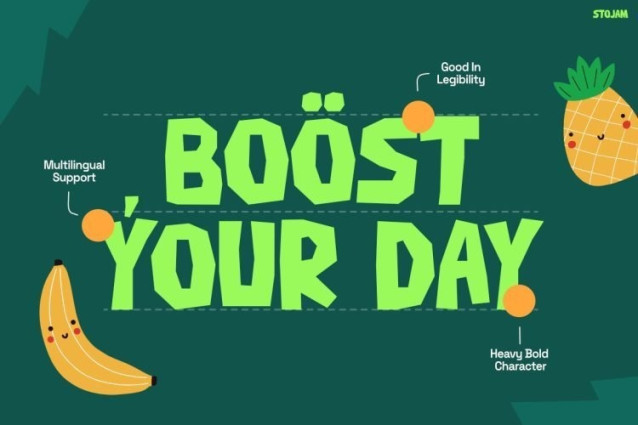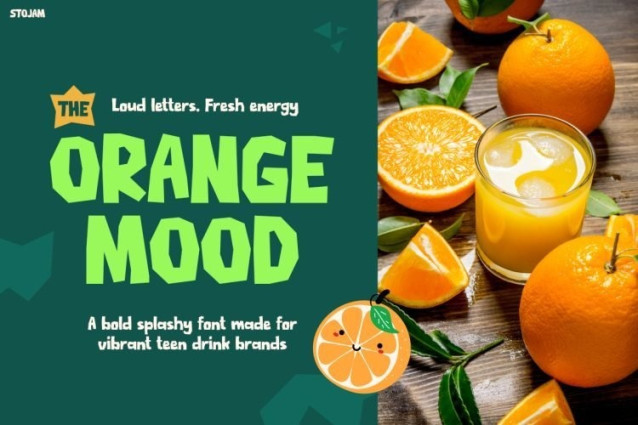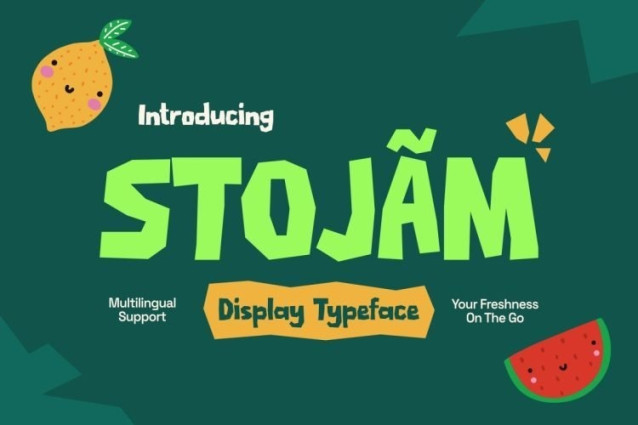
Stojam Font
Stojam Font is a bold, chunky display font with a playful, hand-cut aesthetic. Its heavy, blocky letterforms feature sharp, angular cuts and an irregular, bouncy baseline that gives it a vibrant, handcrafted energy.
This typeface is a natural fit for juice and smoothie packaging, snack branding, kids’ menu designs, and playful food truck signage. Use it to create eye-catching headlines, event posters, product labels, and social media graphics that need a splash of fun and friendly personality.